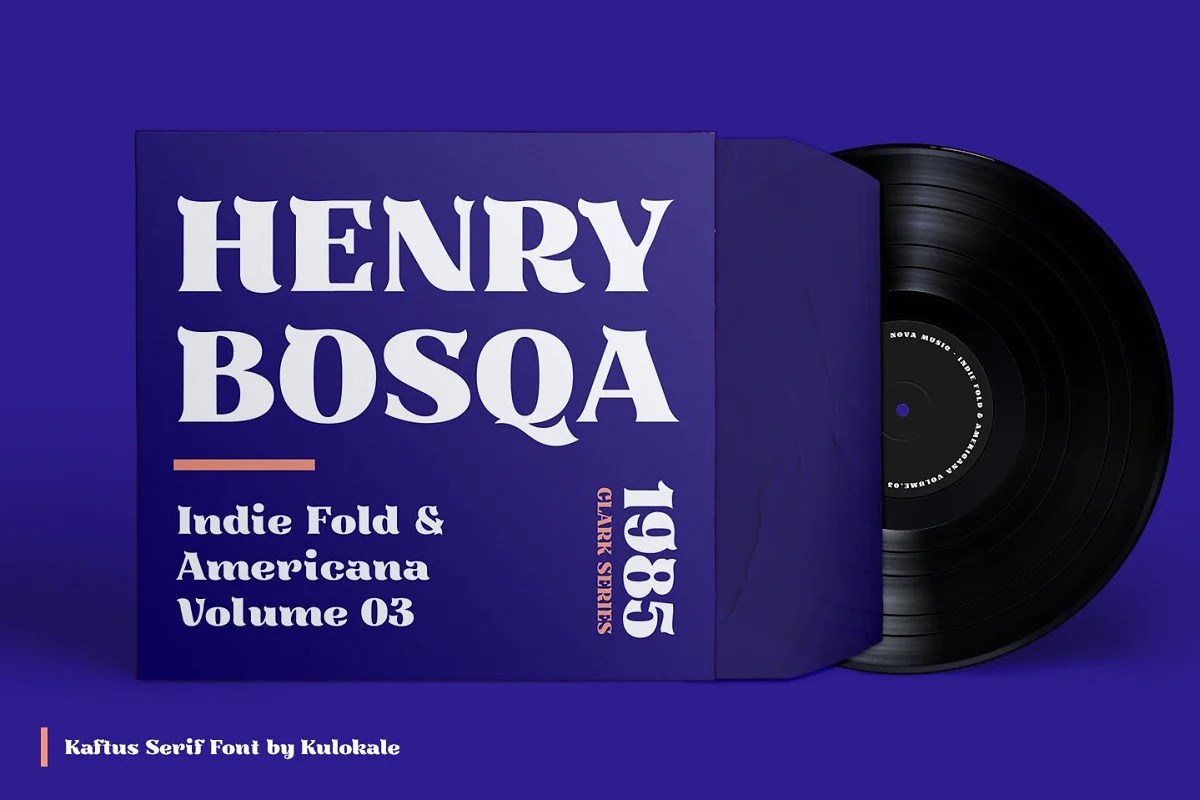
Kaftus Display Font
This is a font with a unique and funny appearance. It’s designed and shared by Kulokale. Kaftus is well-suited for advertising, branding, logotypes, packaging, titles, headlines and editorial design.